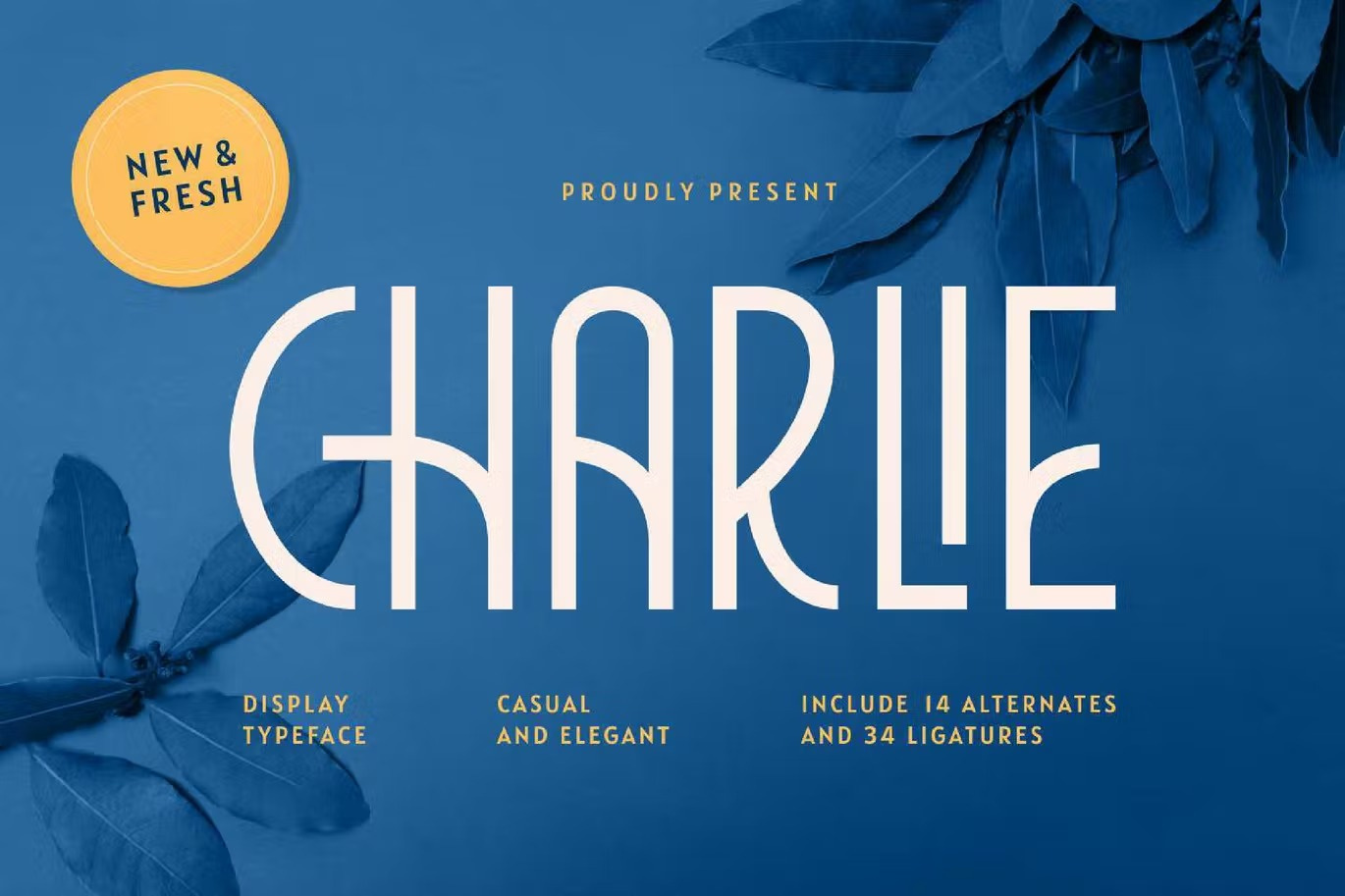
Free Vintage Modern Font - Charlie
Charlie is a contemporary and stylish display sans serif typeface. Charlie is made with inspiration from art deco style. Charlie works best for use in such as book titles, stationery designs, quotes, branding, logos, packaging designs, posters, and more. it looks classy and authentic!